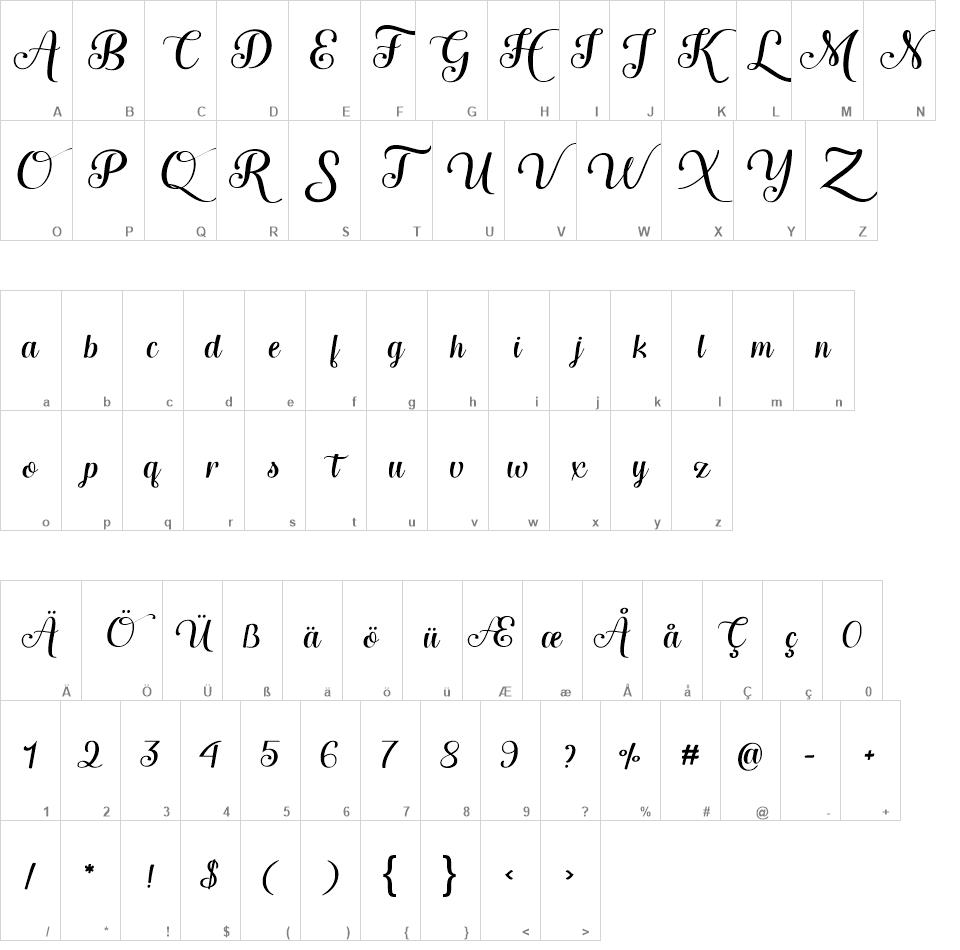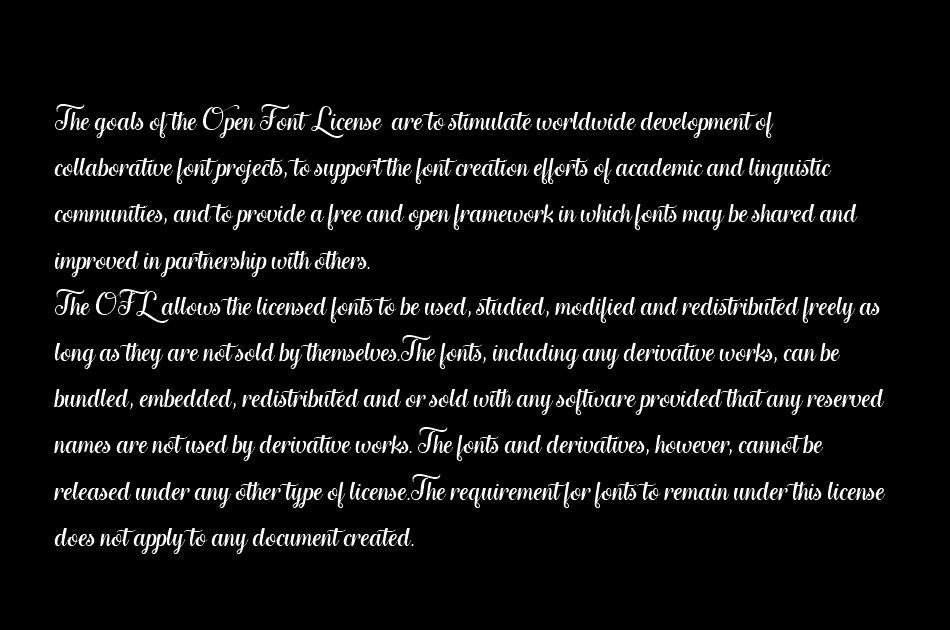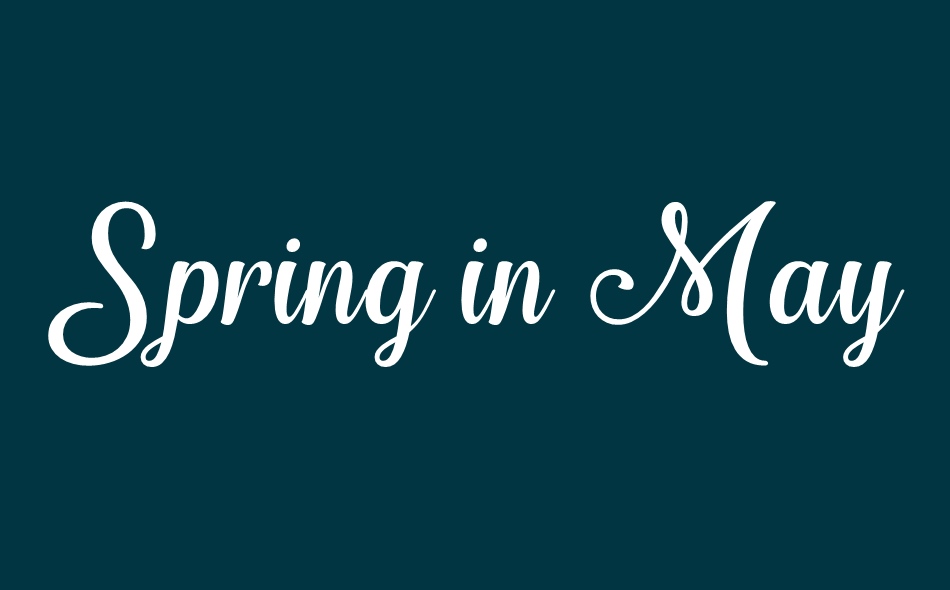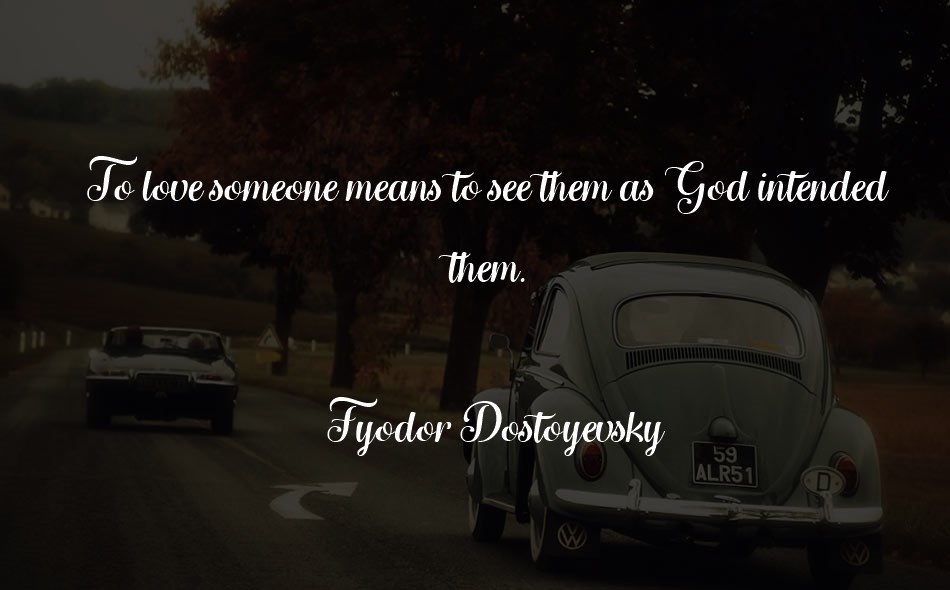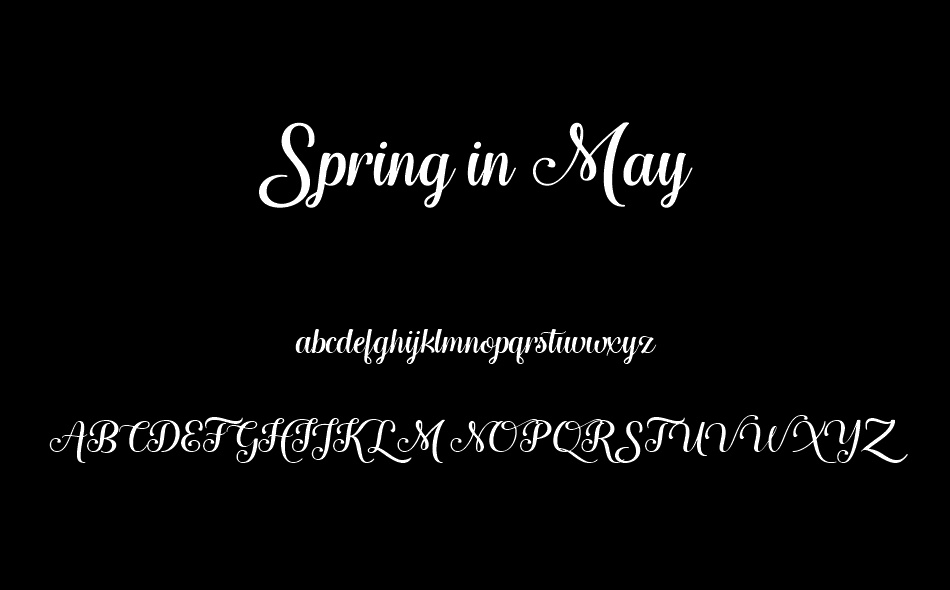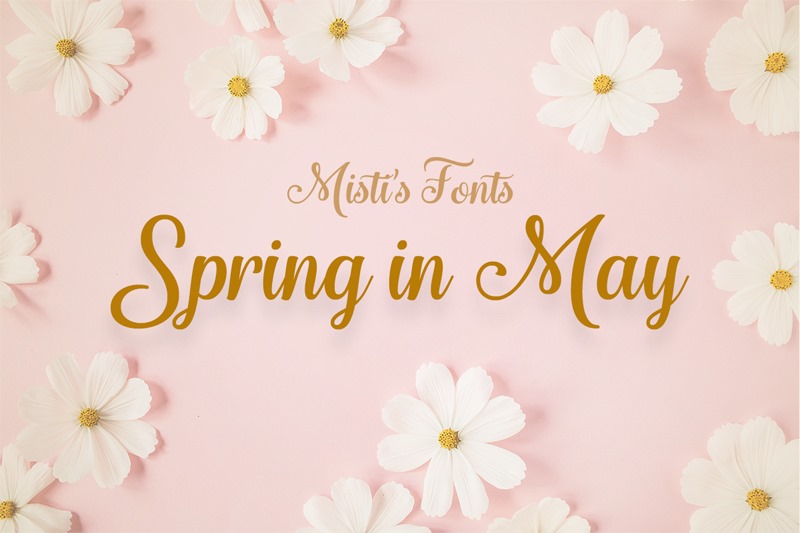
Spring in May font
Spring in May is a stunning calligraphy typeface. Its elegant design makes a perfect choice for wedding invitations, lovely greeting cards and any project that requires a fancy touch.